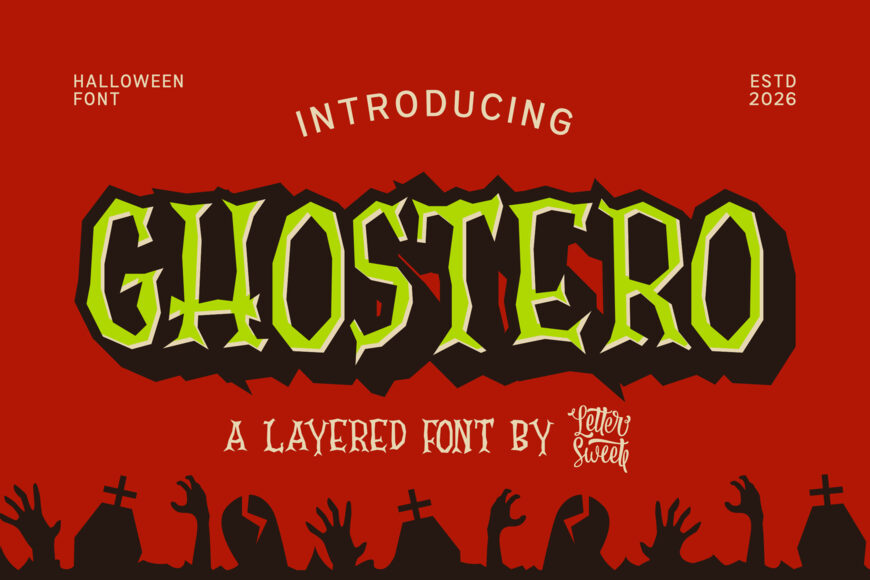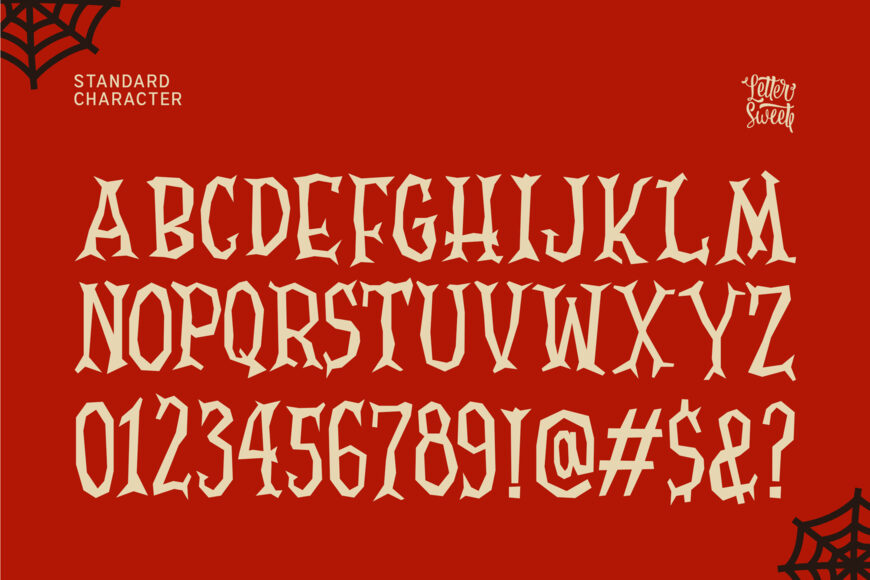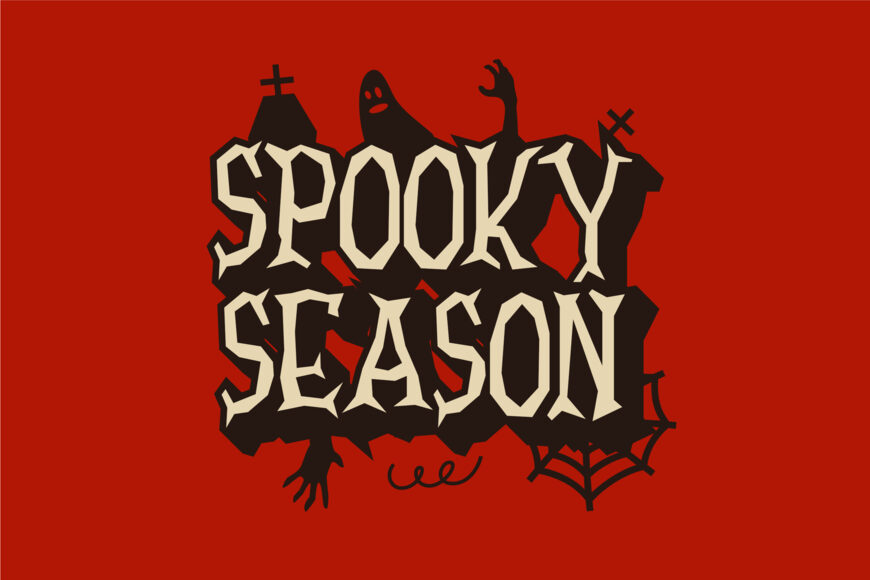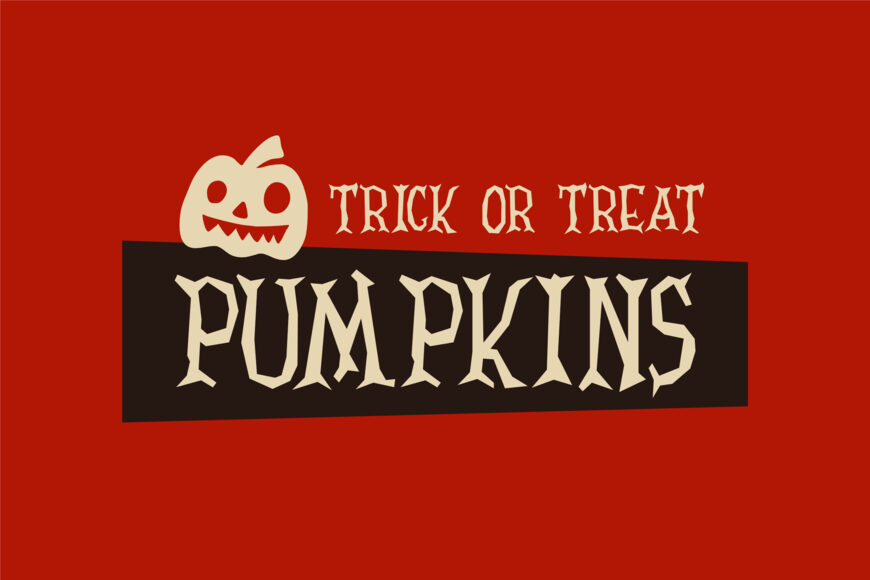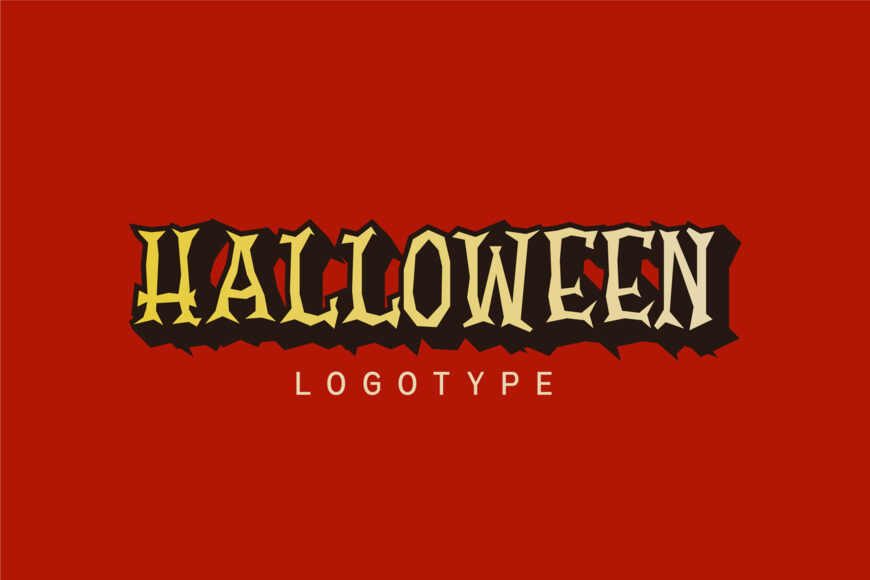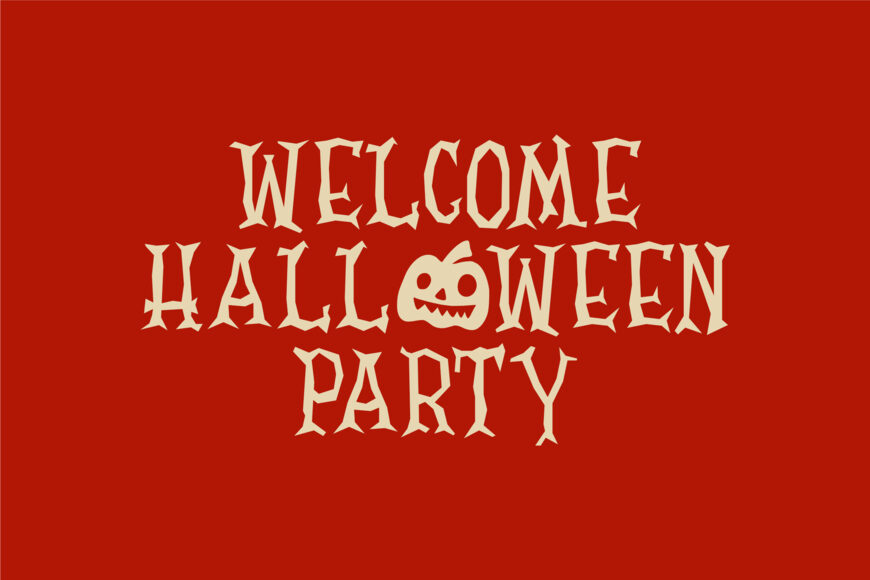
Ghostero Font
Ghostero is a bold layered Halloween display font featuring sharp, irregular letterforms and a creepy gothic personality. Its dramatic shape and customizable layered effect make it easy to create striking titles with depth, shadows, outlines, and contrasting colors.
Perfect for Halloween posters, horror movie titles, haunted house branding, spooky invitations, game graphics, merchandise, packaging, book covers, social media posts, stickers, and seasonal promotions. Ghostero brings a playful yet sinister atmosphere to any design that needs to stand out.